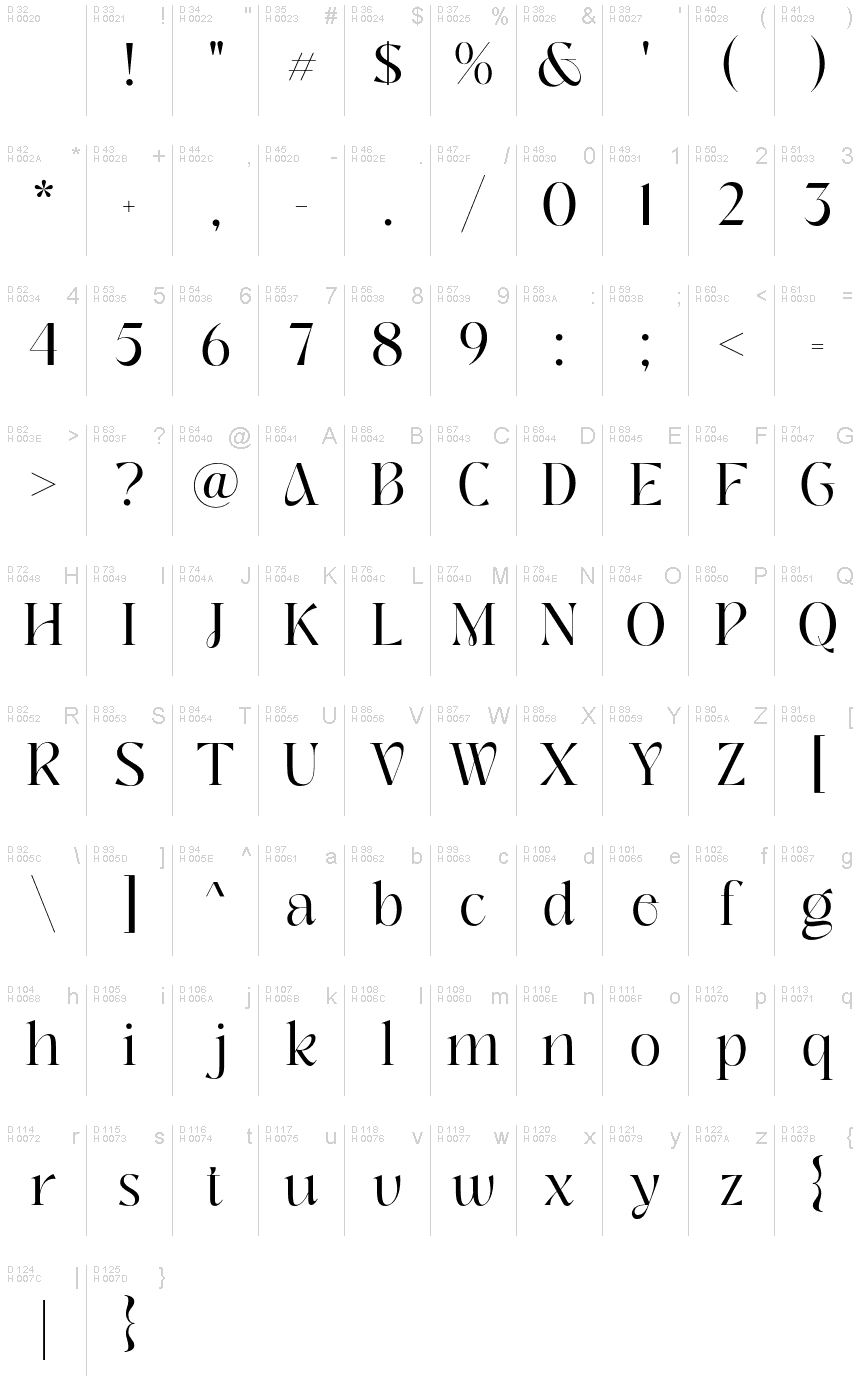
Chaviera-Regular
Chaviera, a mesmerizing serif font designed by Handpik, effortlessly marries sophistication with creativity. With its elegant curves and timeless appeal, this font type is ideal for projects that seek to evoke a classic charm. Its versatility shines through in various applications, including editorial designs, book covers, and invitations. Whether you're creating an upscale brand identity or designing a vintage-inspired website, Chaviera's refined serifs and distinctive letterforms will captivate your audience. Let this exquisite font elevate your projects to new heights of elegance and refinement.